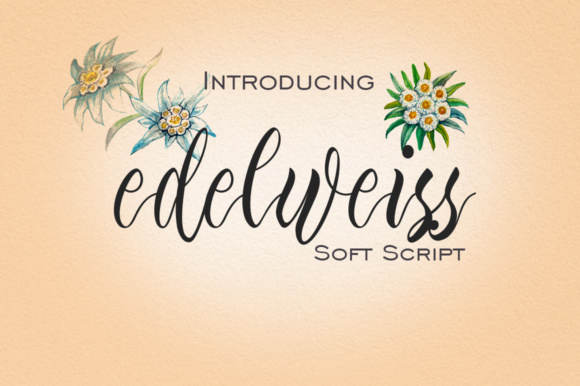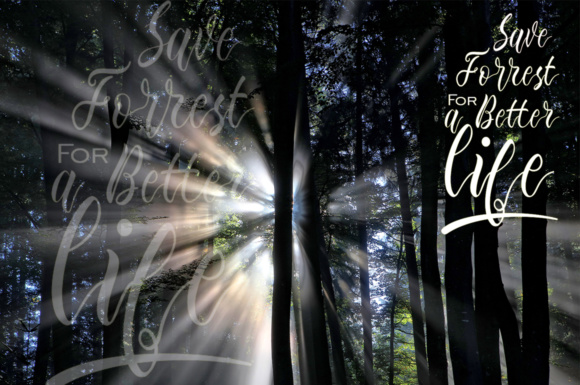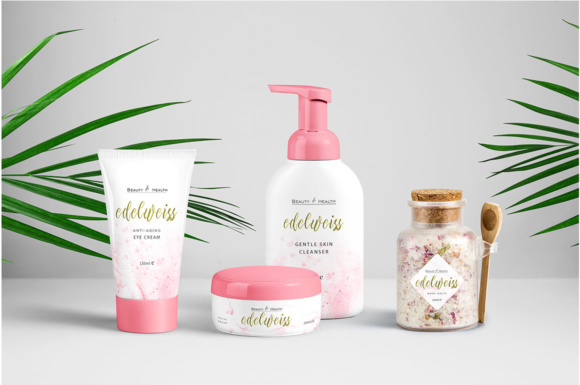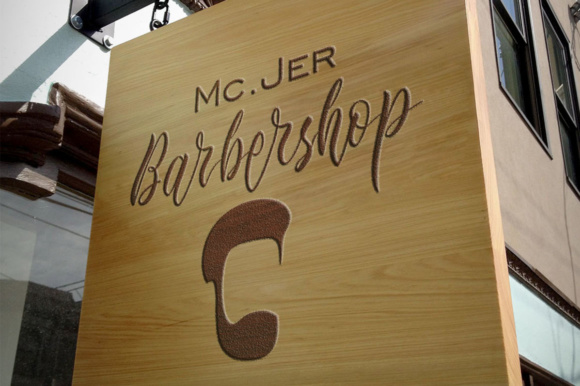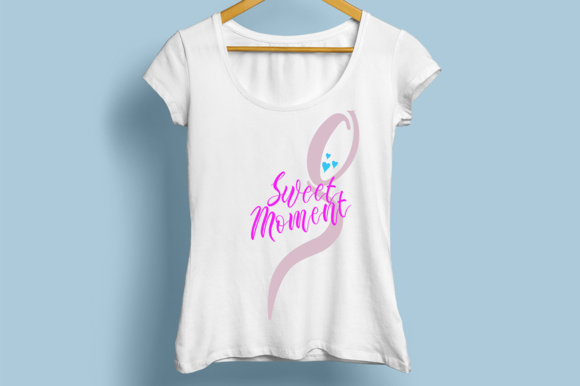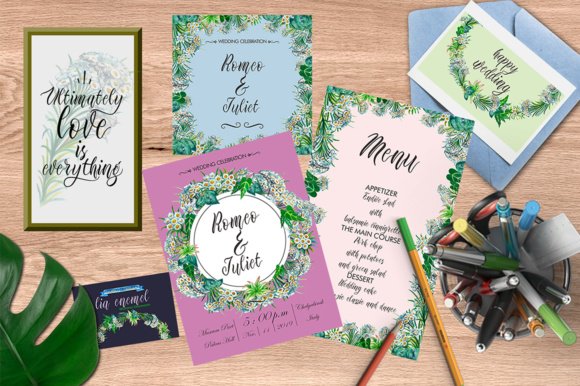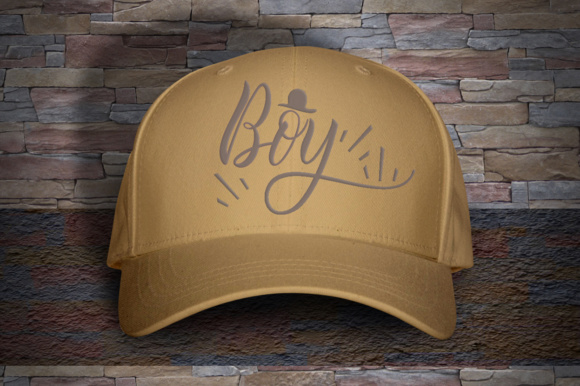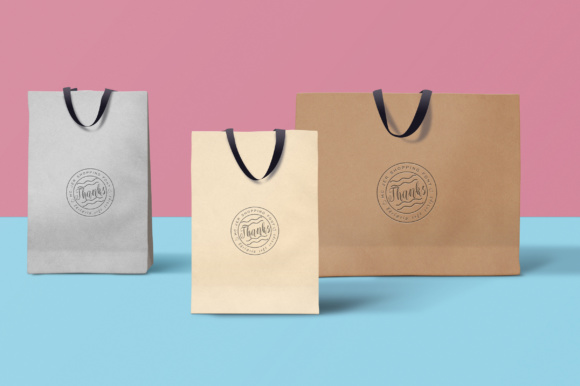
Edelweiss Font
About Edelweiss Font
Edelweiss is a beautiful font inspired by flowers; Edelweiss is a gorgeous flower, and this calligraphy font pays homage to its beauty. This font comes with tons of glyphs, and can add a stunning appeal to your work.